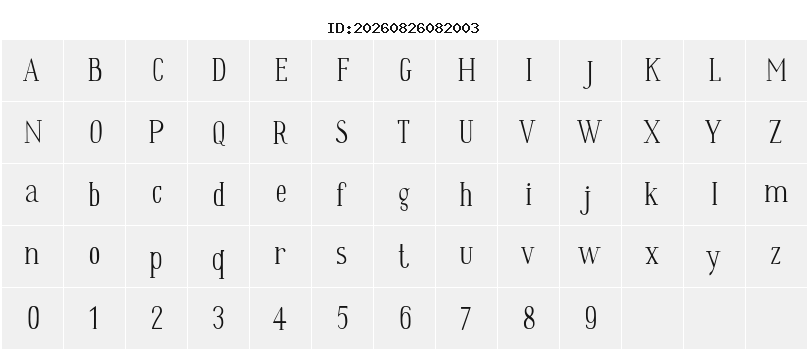
Wes Preview
• Font Name: Wes
• Font ID: YelenaMadyankina&JovannyLemonad: Wes: 2016
• Full Font Name: Wes
• PostScript Name: Wes
• Designer: Yelena Madyankina & Jovanny Lemonad
• Manufacturer: Yelena Madyankina & Jovanny Lemonad
About Wes.ttf
Wes.ttf is a modern, elegant sans-serif font designed for ultimate readability and visual harmony. Perfect for branding, headlines, web design, and print materials.